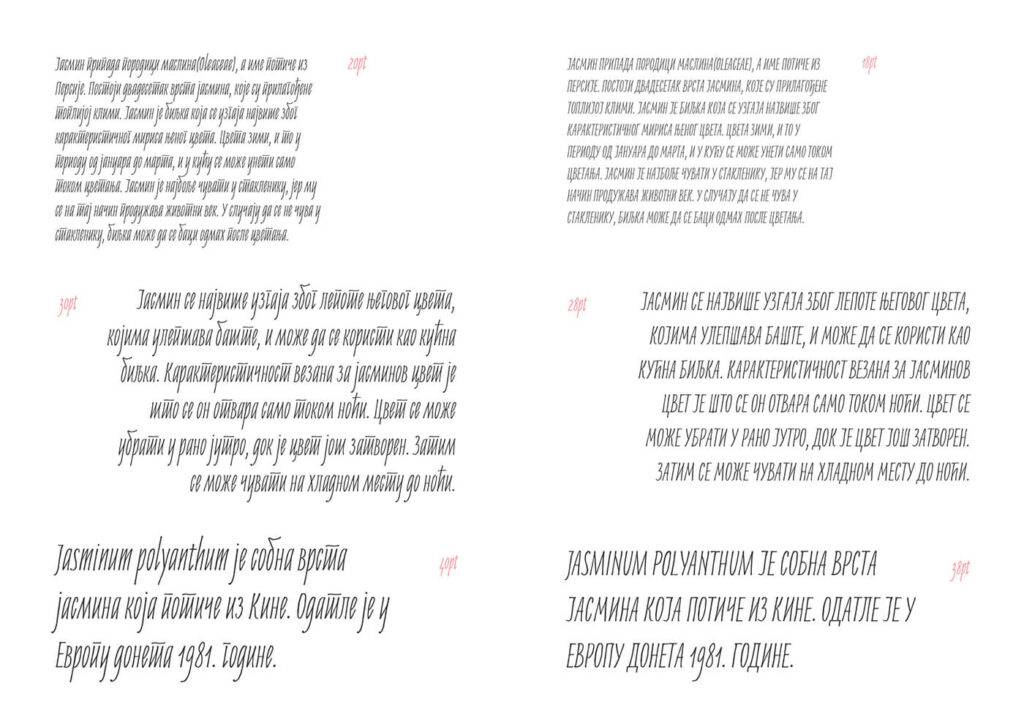
If you’re seeking out a bold, precise, and hanging handwriting font, test this font. introducing Jasminum Handwriting Font! Jasminum is designed and shared via way of means of Jasmina Zornic. Give your designs a proper hand-made sense via way of means of the usage of this font to your designs. It has all of the fundamental glyphs with Latin and Cyrillic letters. It carries a complete set of lower & uppercase letters, a huge variety of punctuation, numerals, and multilingual support.
Jasmine consists of many opportunity characters and is coded with PUA Unicode, which permits complete get right of entry to all of the more characters while not having a unique designing software program. Mac customers can use Font Book. Windows customers can use Character Map to view and duplicate any of the more characters to stick into your favorite textual content editor. For oldsters who’ve OpenType successful software program, the alternates are available by turning on “Stylistic Alternates” and “Ligatures” buttons on in Photoshop’s Character panel, or through any software program with a glyphs panel, e.g. Adobe Illustrator, Photoshop CC, Inkscape.
The font is best for including a private contact in your layout projects. It will appear best for images watermark, branding, signature, and logo. Jasminum is likewise ideally fitted to stationery, typography quotes, mag or e-book cover, internet site header, clothing, packaging layout, and more.